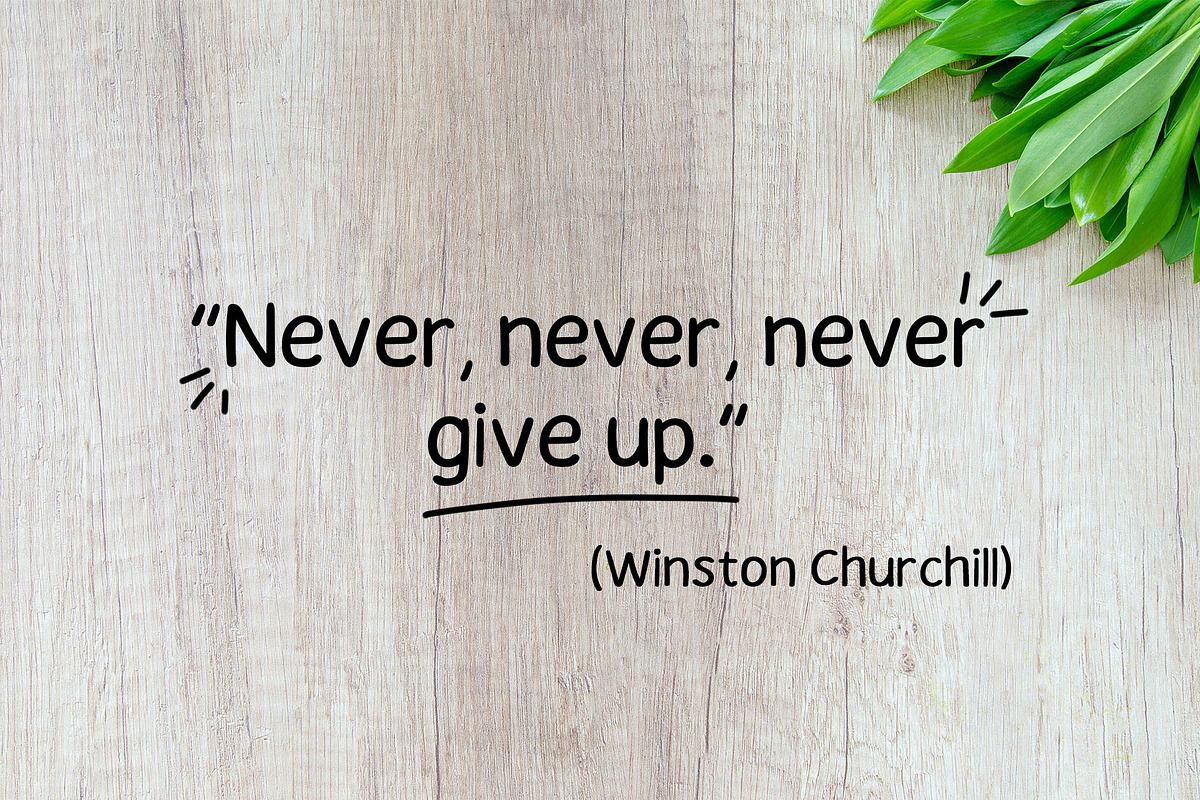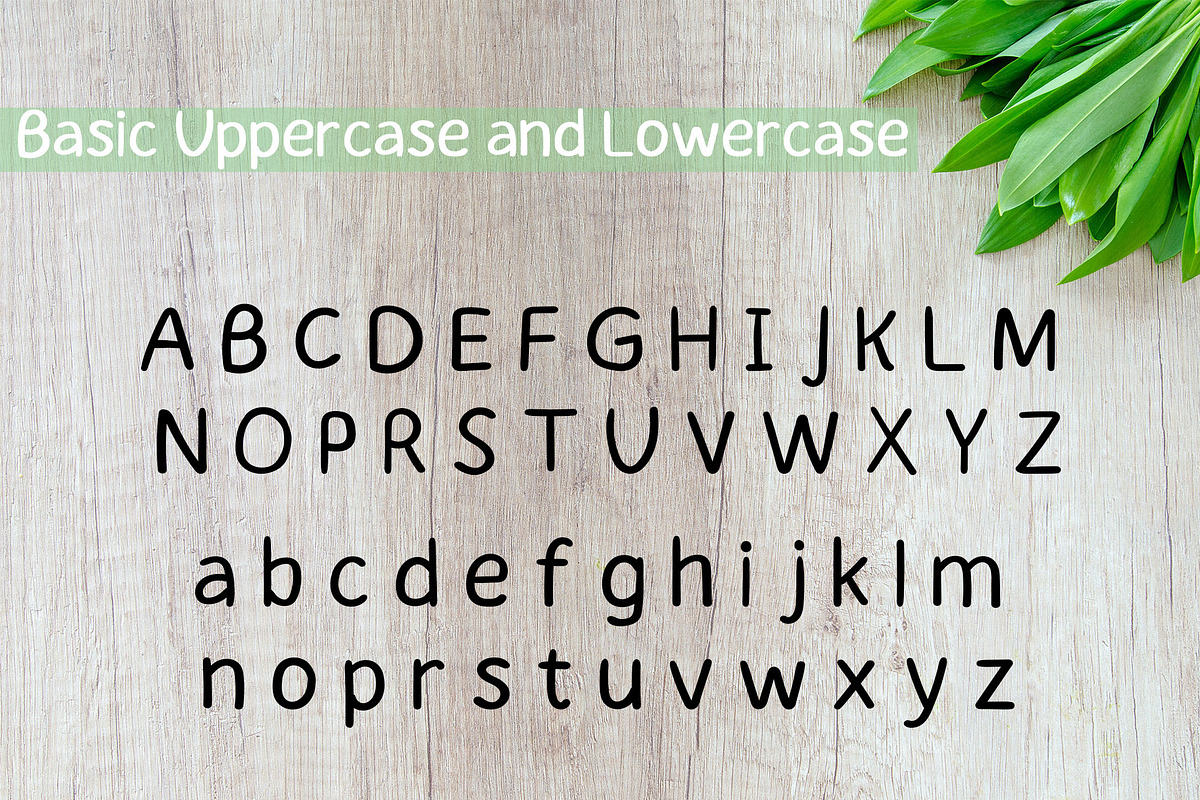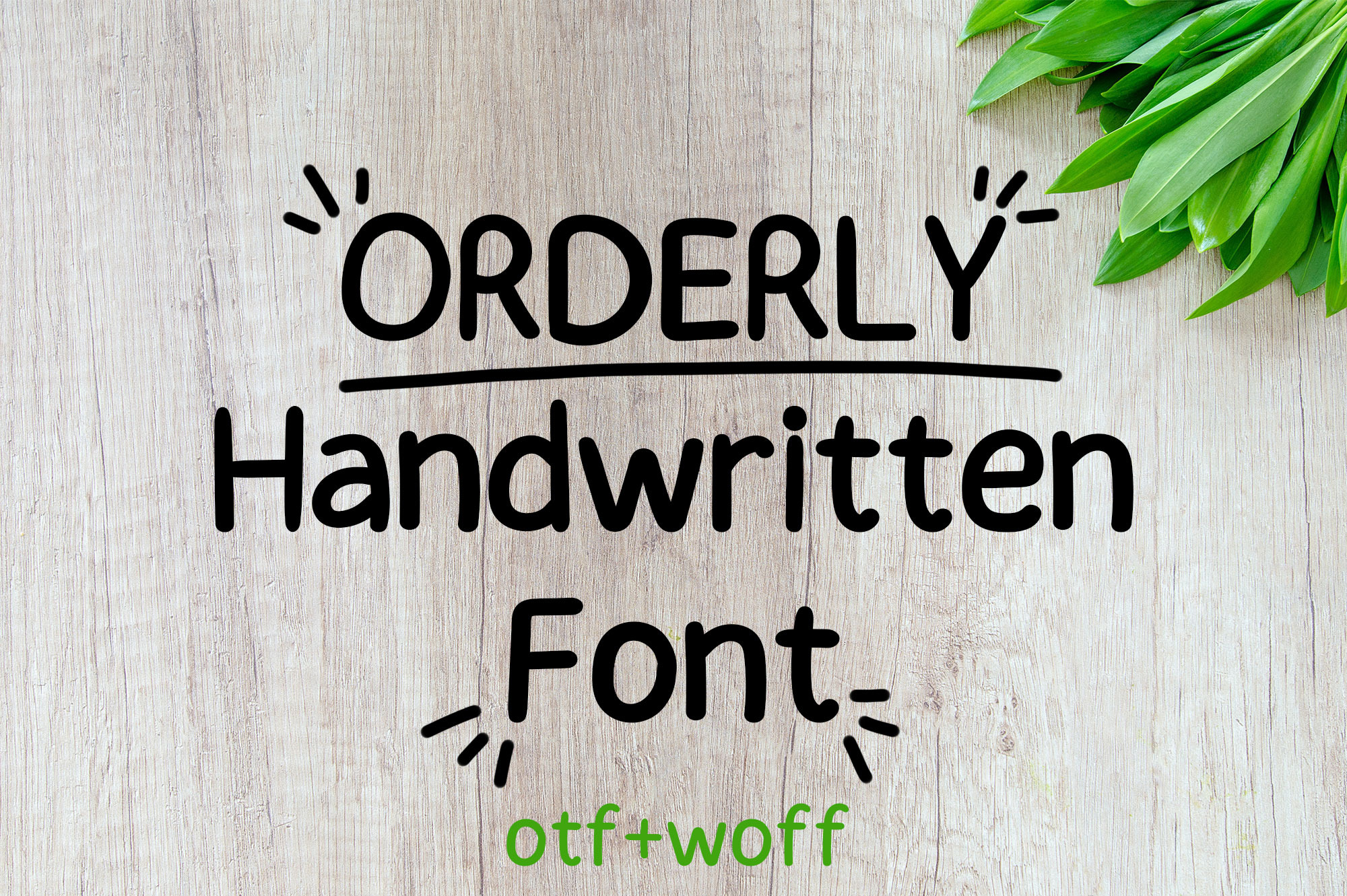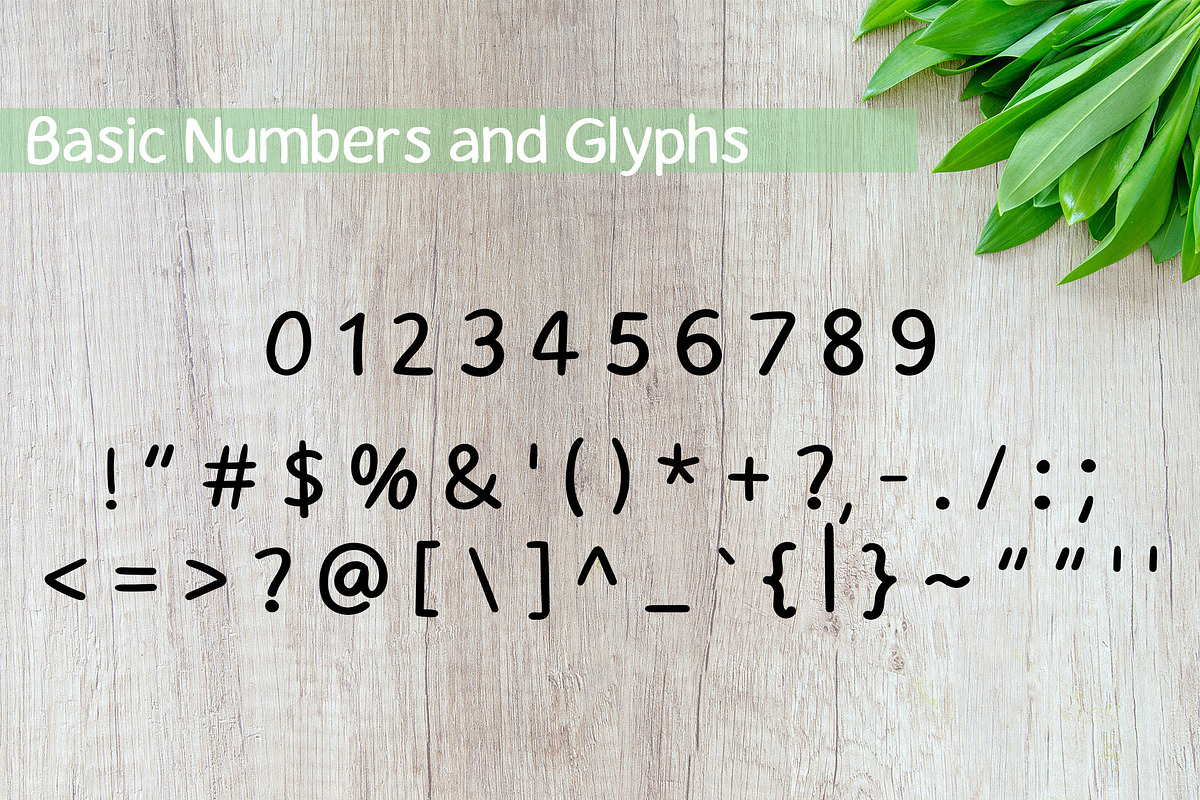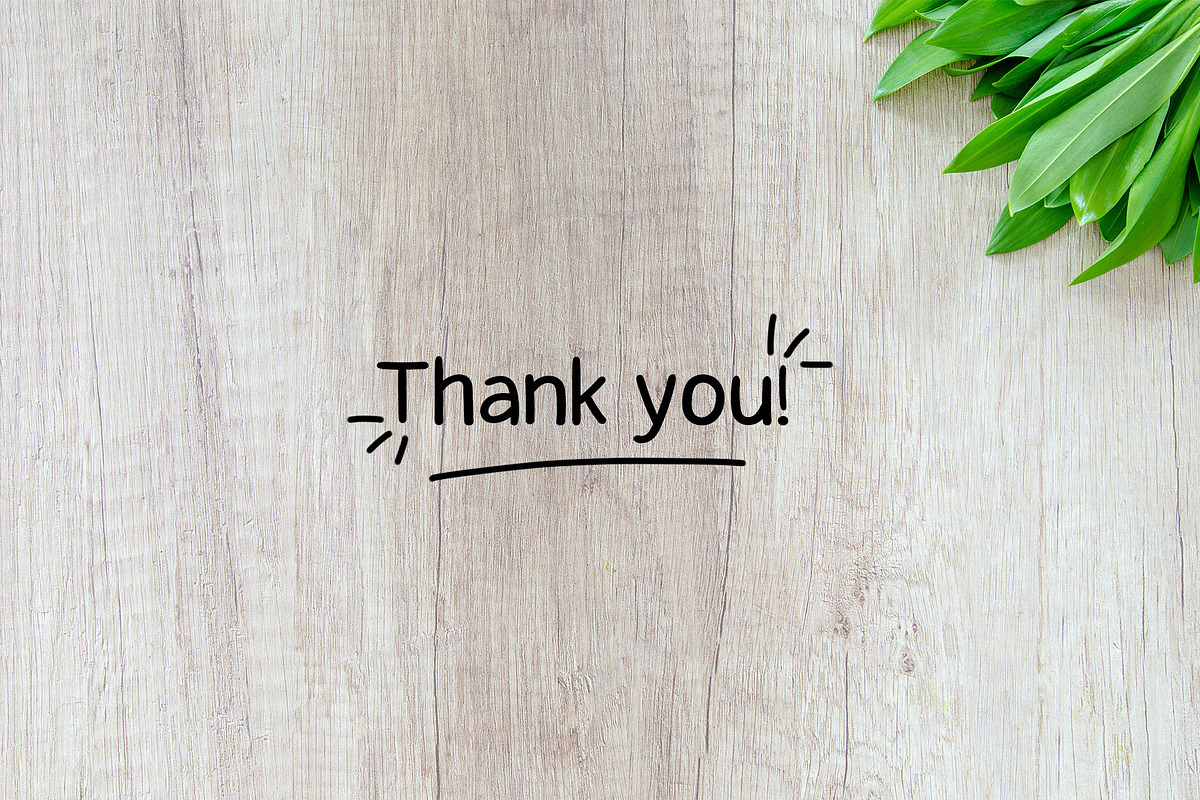
Orderly Handwritten Font
Neat handwritten font drawn by hand and with love. Will become a decoration of your design. Looks harmoniously on printed and digital products. An ideal font for wedding, children's paraphernalia, t-shirts, lettering.
The digital set includes uppercase and lowercase English letters, numbers, and punctuation marks. Font format: OTF, WOFF.